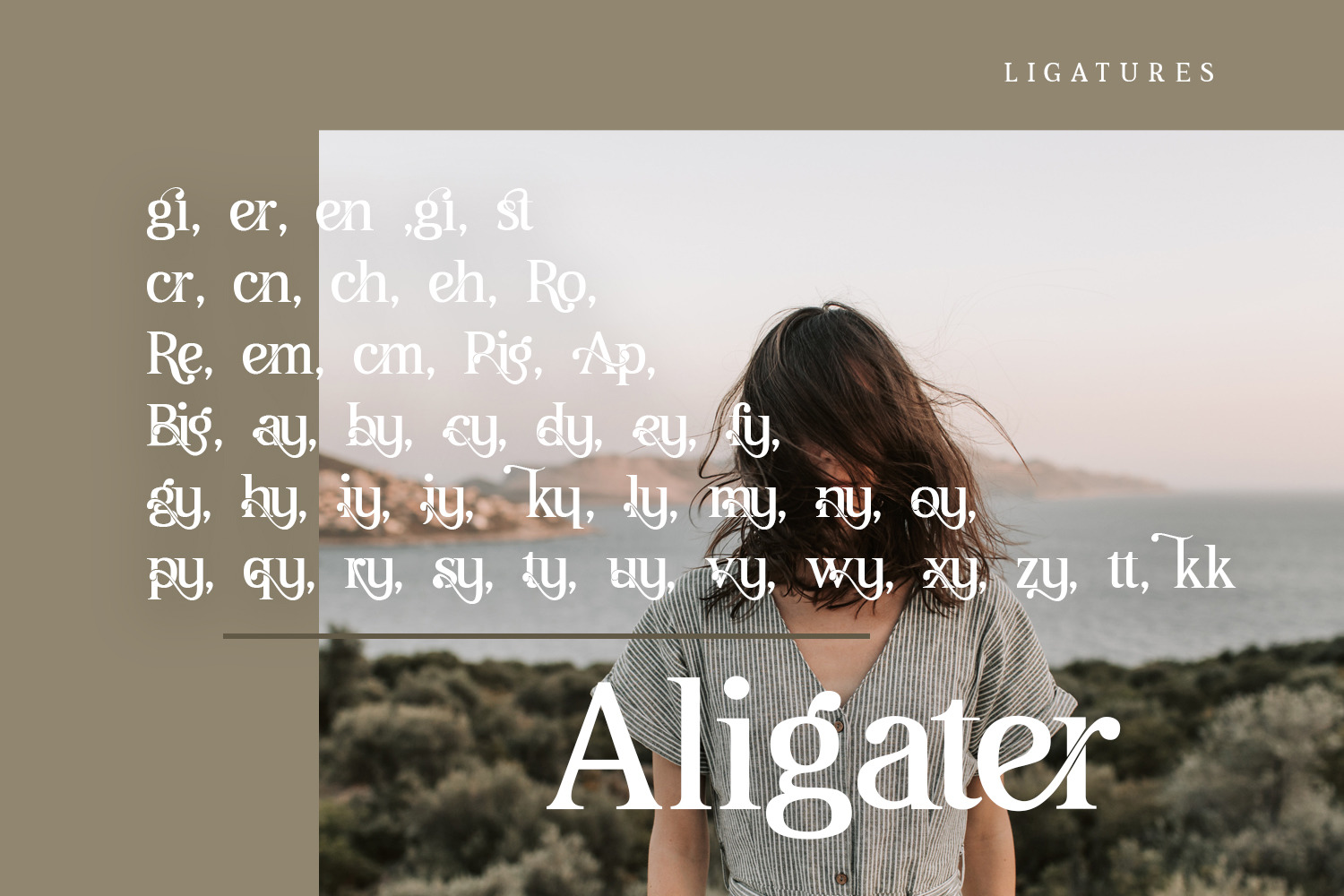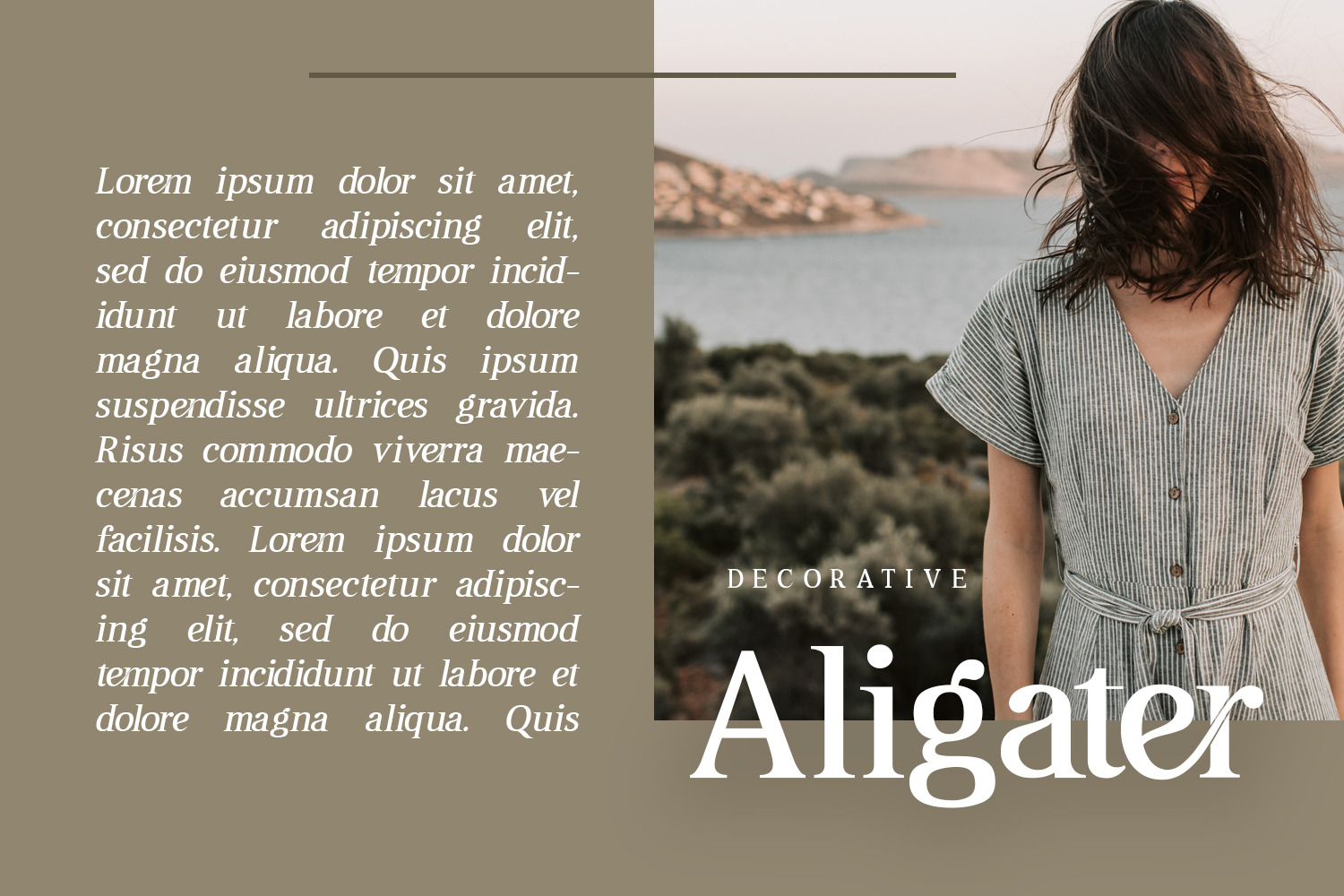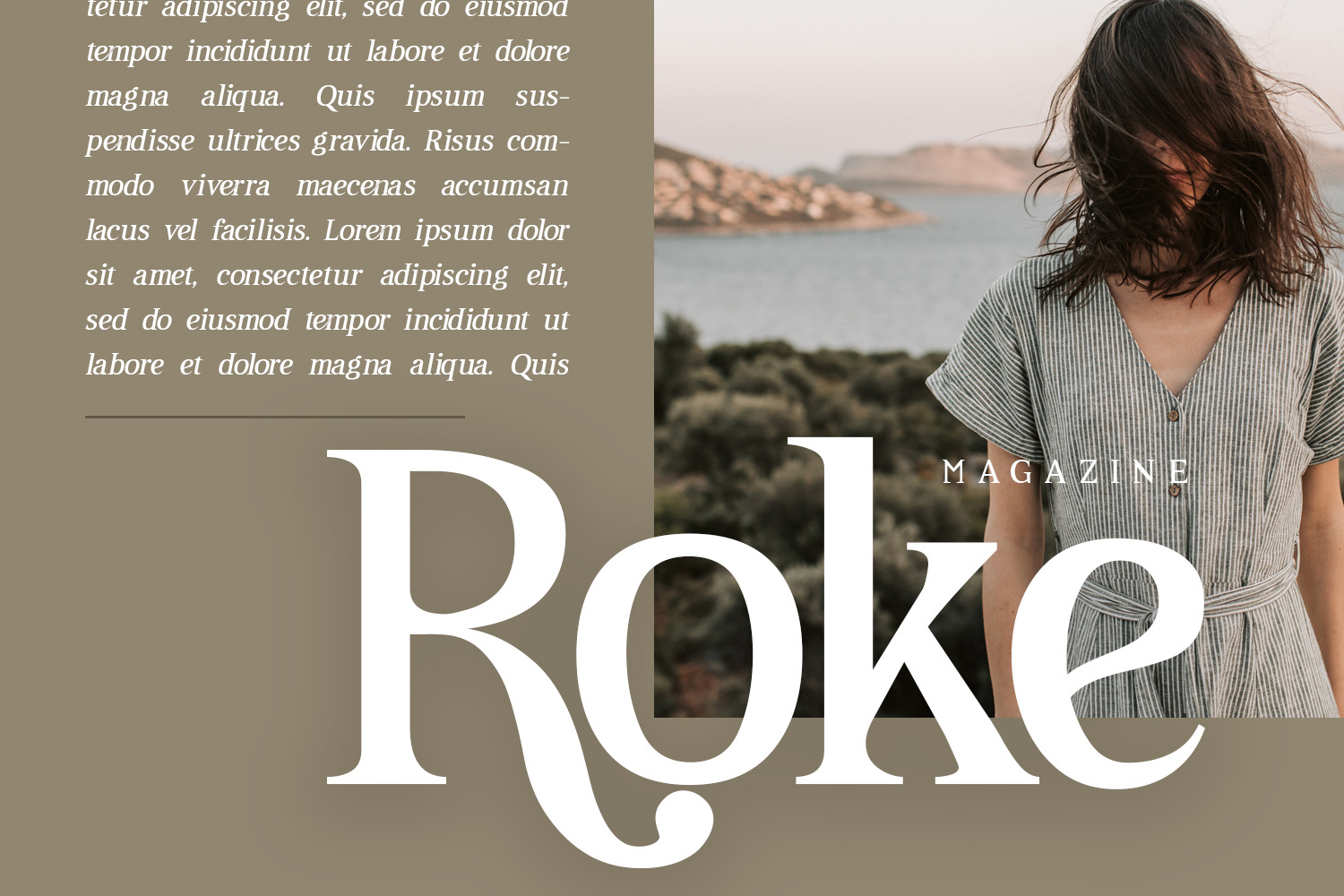
Aligater Font
Aligater is a stylish and elegant serif font. It has a classy, elegant and modern look that can be used for logos, branding, invitations, stationery, wedding designs, social media posts, and much more!
This font, stylized with elegant soft turns that soften the sharp ends. Due to its structure, this font can meet your needs in all your modern or classic creative projects.
You can easily use the font feature in many areas. You can create your text with normal characters and highlight bold characters and titles.
The font is perfect for designs that need to have a traditional, antique feel while still being sleek and minimalist. It will look fantastic with any logo, product name, poster, or design.